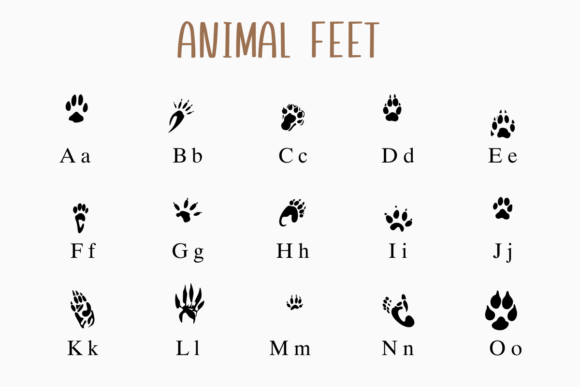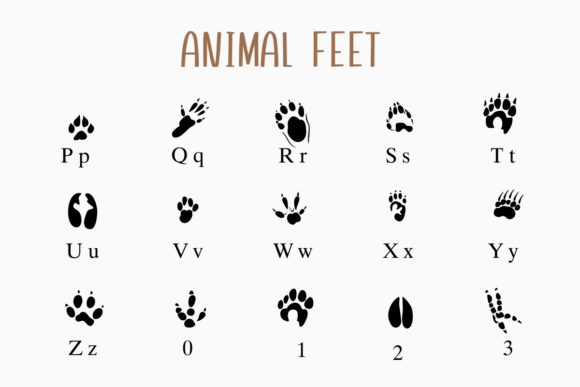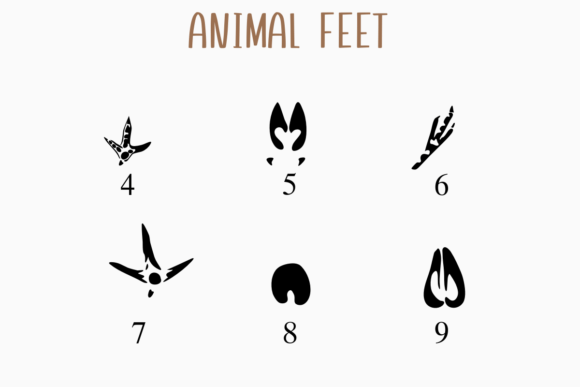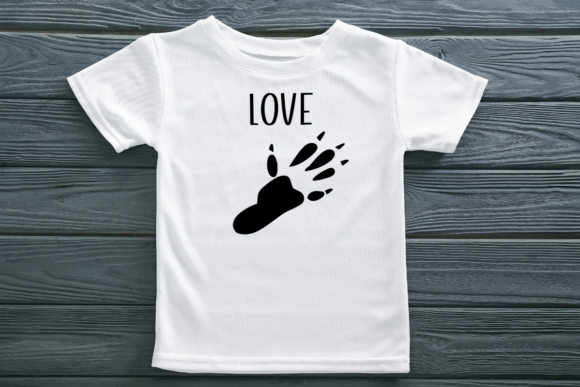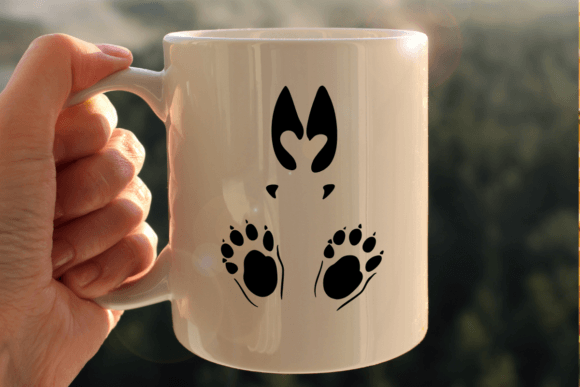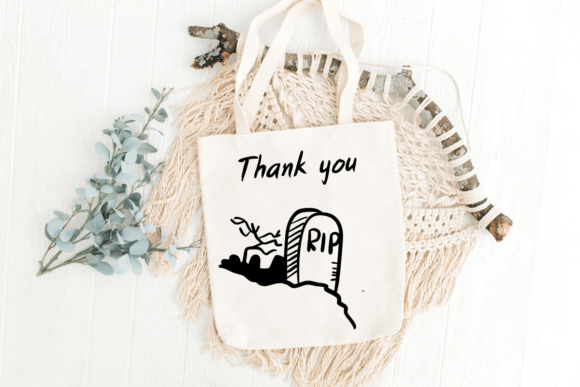
Step into the World of Whimsy with Animal Feet Font
Do you ever find yourself strolling through a forest, feeling the soft earth beneath your feet, and imagining the tiny creatures that might have walked the same path before you? That’s exactly the magic that Animal Feet Font brings to your designs. This delightful dingbat font features a variety of animal footprints, from paw prints to hoof imprints, adding a playful touch to your work.
Whether you’re a designer, a crafter, or simply an animal lover, Animal Feet Font is a valuable addition to your toolbox. With its simplicity and charm, it’s perfect for posters, cards, and children’s materials. By incorporating Animal Feet Font into your projects, you can bring a sense of wonder and excitement to your audience, making your designs truly unforgettable.
Animal Feet Font Key Features
- Unique Characteristic: The font features stylized animal footprints that can be used as decorative elements or icons in designs.
- Style Options: Includes a range of animal footprints in different styles, such as bold, italic, and regular, to cater to various design needs.
Designer Review: Animal Feet Font
At first glance, I was excited to dive into the “Animal Feet Font” and see what it had to offer. I’ve worked with many unique fonts in my time, but this one really stood out. ✨ The quirky, playful design immediately caught my attention and made me wonder how it could be used in various projects.
One of the things that works well with this font is its versatility. ✨ It can be used for a wide range of applications, from children’s books to advertising and even packaging. The font’s quirky design also lends itself well to creative projects, such as posters or social media graphics.
What Could Be Improved:
- ⚠️ Limited legibility: In certain situations, the font can be difficult to read, especially when used in large blocks of text.
- ⚠️ Limited character set: The font’s character set is somewhat limited, which may cause issues when trying to use it for certain applications, such as international text.
Overall, I think the “Animal Feet Font” is a fun and unique addition to any designer’s toolkit. While it may have some limitations, its versatility and playful design make it a great choice for creative projects. With some careful planning and consideration, I think this font could be a real asset for designers looking to add some personality to their work.
Animal Feet Font is ideal for creating whimsical and playful designs.
Use it for:
– Children’s book covers and illustrations
– Party invitations and decorations
– Social media graphics and advertisements
– Educational materials and worksheets
For the best results, pair Animal Feet Font with bold colors and playful graphics.